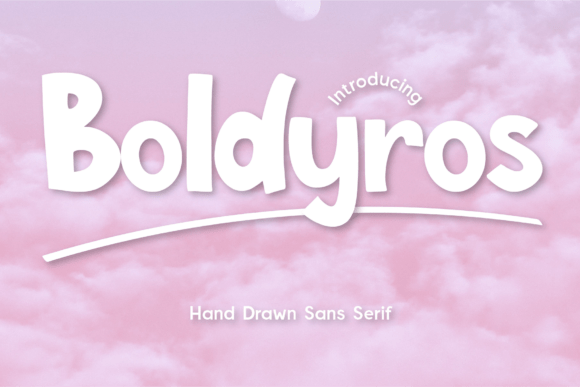
Introducing Boldyros: The Fun & Playful Hand-Drawn Sans Serif
Have you ever been in the middle of a design project, and suddenly, you’re stuck on finding the perfect font? I recall a recent experience where I was working on a children’s book, and my client requested a font that was both bold and friendly. After scouring through numerous font libraries, I stumbled upon **Boldyros**, a hand-drawn sans serif that instantly captured the playful essence of the project. With its unique charm and energetic vibe, Boldyros quickly became the star of the show.
What Makes Boldyros Special?
Boldyros is more than just a font – it’s a design statement. Its slightly irregular letterforms and natural strokes give it a handcrafted feel that’s both approachable and engaging. This font is perfect for designers, crafters, and creative hobbyists looking to add a touch of personality to their work. Whether you’re designing logos, children’s books, packaging, social media graphics, or playful branding, Boldyros delivers a fresh and lively look.
Why Choose Boldyros?
- ✔ Bold & Friendly: Eye-catching yet approachable, ideal for branding and headlines.
- ✔ Handcrafted Feel: Natural strokes with an organic, slightly irregular touch.
- ✔ Versatile & Playful: Works well for kids’ designs, social media, and creative projects.
- ✔ Easy to Read: Clean yet expressive letterforms for clear communication.
What I Love About Boldyros ✨
- ✅ The unique, hand-drawn aesthetic that sets it apart from more traditional fonts.
- ✅ The perfect balance of boldness and friendliness, making it suitable for a wide range of projects.
- ✅ The clean and expressive letterforms that ensure clear communication.
While Boldyros is an excellent font, there are a few minor considerations to keep in mind:
- ⚠️ Legibility at Small Sizes: Due to its hand-drawn nature, Boldyros might not be the best choice for very small font sizes or body text.
- ⚠️ Overuse: As with any bold font, using Boldyros excessively can be overwhelming. Balance is key.
- 🤔 Limited Formality: Boldyros is best suited for creative and playful projects. It might not be the best fit for more formal or corporate designs.
The Story Behind Boldyros
Boldyros was designed with the intention of creating a font that embodies the spirit of handcrafted charm and playfulness. Its creator aimed to develop a typeface that would be both bold and friendly, making it perfect for a wide range of creative projects. The design process involved a lot of experimentation with natural strokes and irregular letterforms, resulting in a font that’s both unique and highly engaging.
Q: Is Boldyros suitable for body text?
A: While Boldyros is primarily designed for headings and titles, it can be used for short paragraphs of body text. However, for longer texts, a more traditional font might be more suitable.
Q: Does Boldyros support OpenType features?
A: Yes, Boldyros supports various OpenType features, including stylistic alternates and glyphs. This allows for a high degree of customization and creativity.